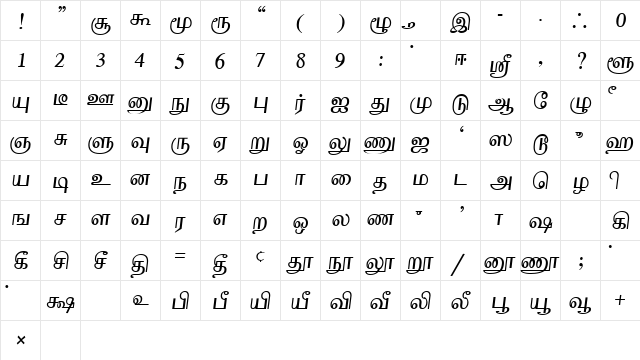
Akarathi Plain
Design Context for Akarathi Typeface
Akarathi is a composed and adaptable typeface that performs quietly and consistently across a wide range of design contexts.